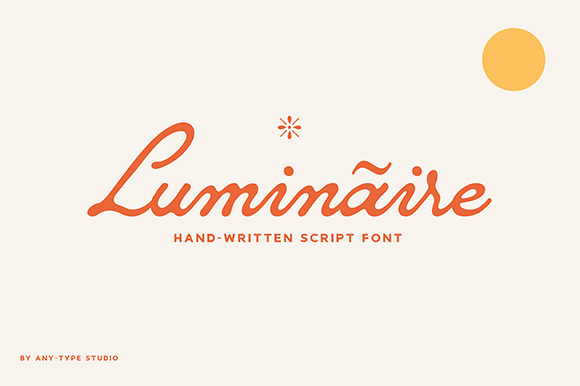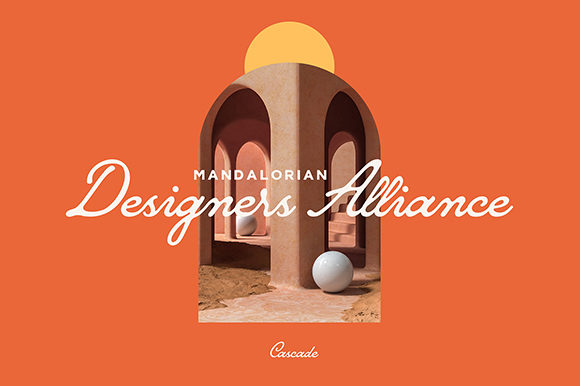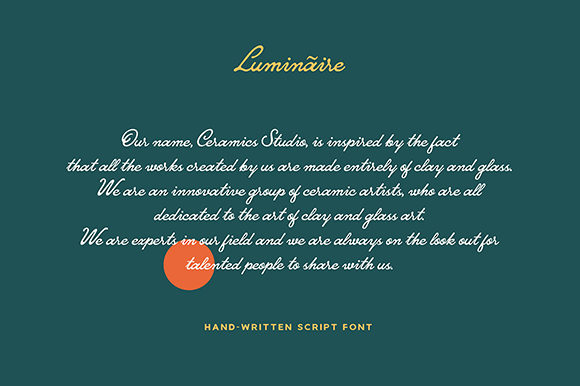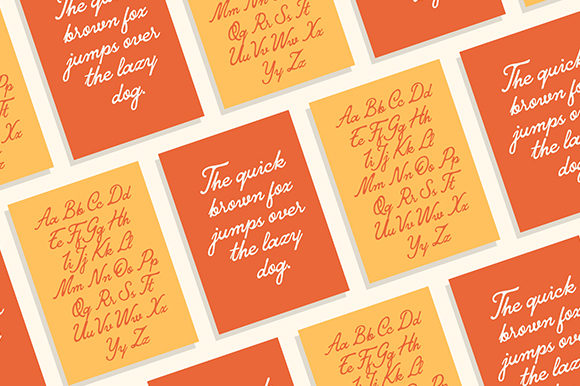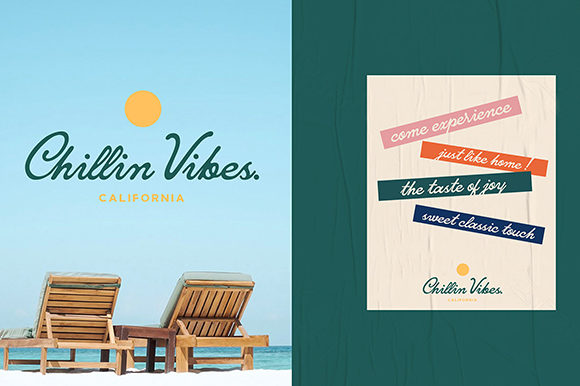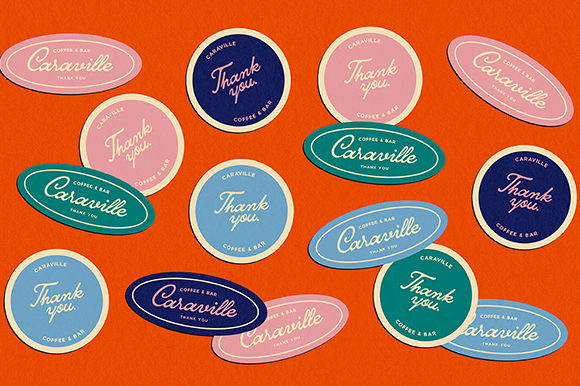
Luminaire Font
About Luminaire Font
Luminaire is a stylish, cursive and delicate script font. It has a clean, thin and smooth vibe and it will be a hit for any design that you want to add it to.